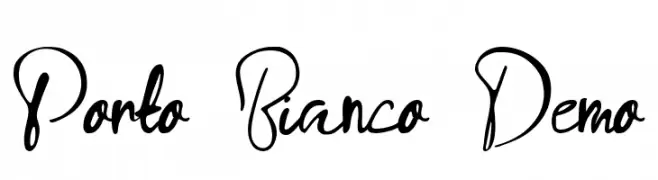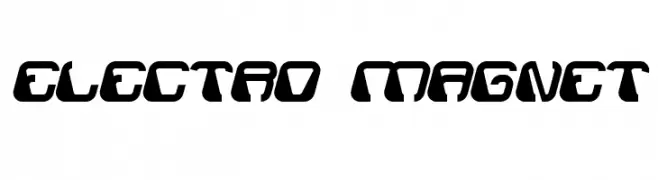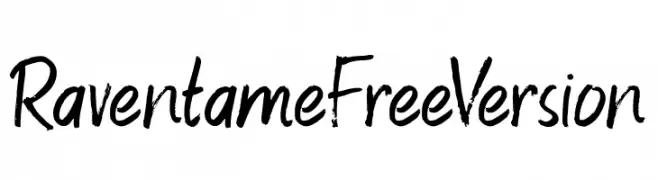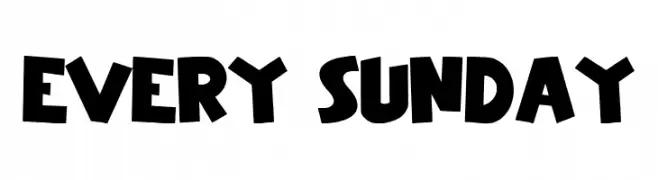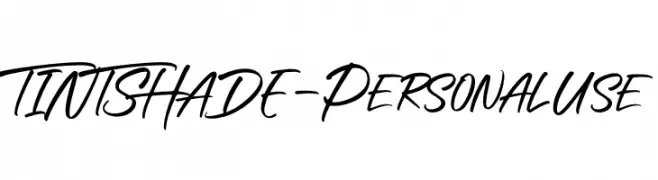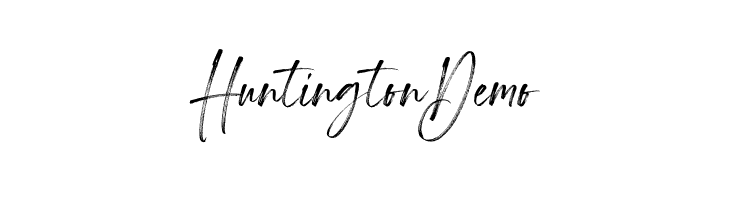
A dynamic and elegant script font with flowing, connected letters.
A bold, decorative font with a three-dimensional shadow effect.
A bold, Western-style font with thick serifs and a rugged aesthetic.
A bold, futuristic font with angular, geometric shapes and a mechanical feel.
A modern, extra light, condensed typeface with high legibility.
A bold, modern font with tall, narrow letterforms and high contrast.
A bold, expressive handwritten font with brush-like strokes.
A bold, playful font with rounded, whimsical characters.
A modern, expanded semi-italic font with geometric design and uniform stroke width.
A dynamic script font with fluid, cursive strokes and a handwritten feel.